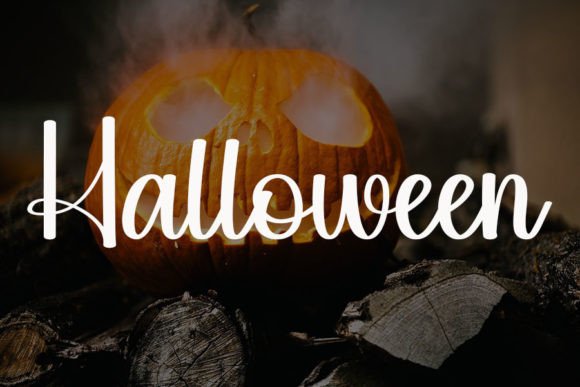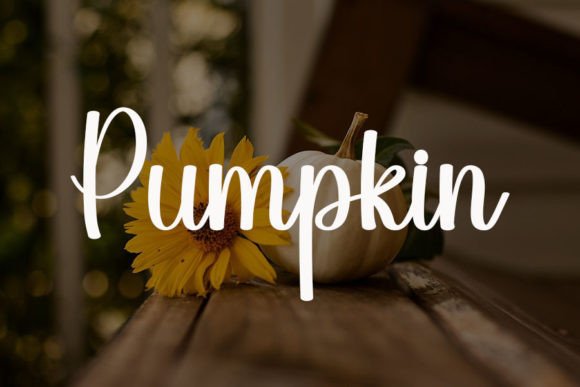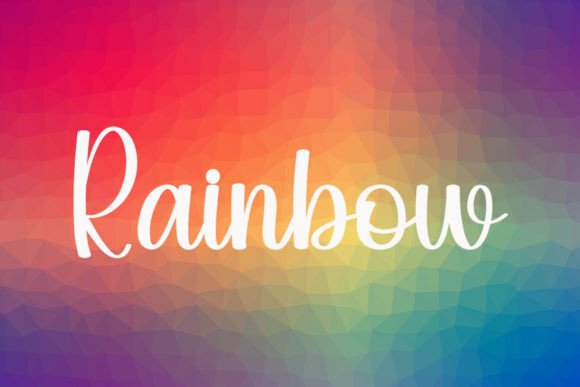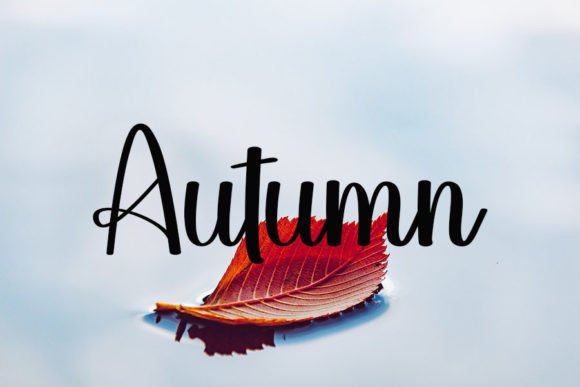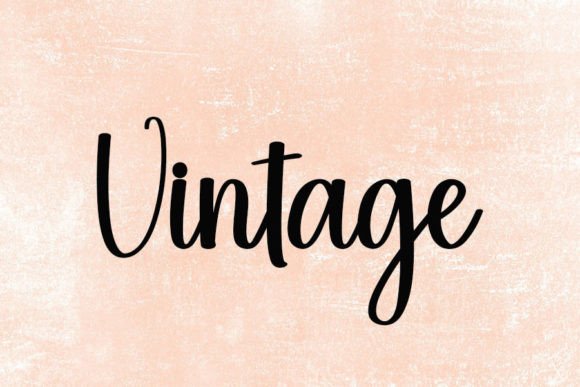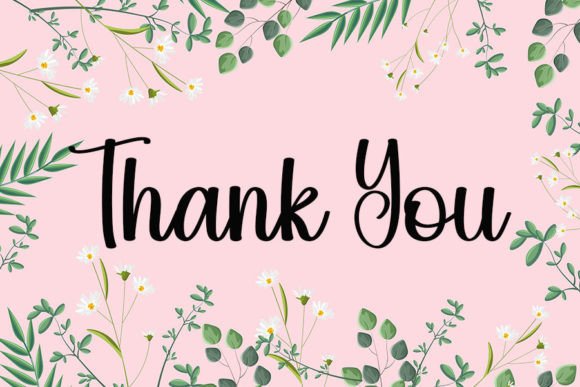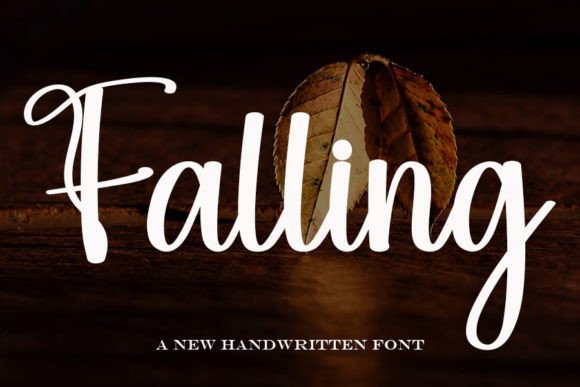
Falling Font: The Elegant Choice for Your Design Projects
Are you looking for a font that adds a touch of elegance and sophistication to your design projects? Look no further than the Falling Font, a beautiful handwritten font that is sure to capture your heart. With its incredibly distinct and timeless style, Falling Font is the perfect choice for designers and crafters who want to create spectacular designs that stand out from the crowd.
What is Falling Font?
Falling Font is a neat and beautiful handwritten font that is described by an elegant touch. It is a carefully crafted font that is designed to add a touch of sophistication and refinement to any design project. Whether you’re working on a logo, a poster, a website, or any other design project, Falling Font is the perfect choice.
Key Features of Falling Font
- Elegant Touch: Falling Font has an elegant touch that sets it apart from other fonts. Its smooth and flowing lines make it perfect for designs that require a touch of sophistication.
- Handwritten Style: Falling Font is a handwritten font that has a personal and unique feel to it. It’s perfect for designs that require a human touch.
- Distinct and Timeless Style: Falling Font has an incredibly distinct and timeless style that makes it stand out from other fonts. It’s a font that will never go out of style.
- Perfect for Various Design Projects: Falling Font is versatile and can be used for a wide range of design projects, including logos, posters, websites, and more.
Why Choose Falling Font?
There are many reasons why you should choose Falling Font for your design projects. Here are a few:
- Unique and Creative: Falling Font is a unique and creative font that will add a touch of elegance and sophistication to your designs.
- Easy to Read: Falling Font is easy to read, making it perfect for designs that require a lot of text.
- Highly Versatile: Falling Font is highly versatile and can be used for a wide range of design projects.
- Supports Multiple Languages: Falling Font supports multiple languages, making it perfect for designers who work with clients from around the world.
How to Use Falling Font
- Pair it with Other Fonts: Falling Font can be paired with other fonts to create a unique and creative design.
- Use it for Headings and Titles: Falling Font is perfect for headings and titles. Use it to add a touch of elegance and sophistication to your designs.
- Experiment with Different Colors: Falling Font looks great in a variety of colors. Experiment with different colors to find the one that works best for your design.